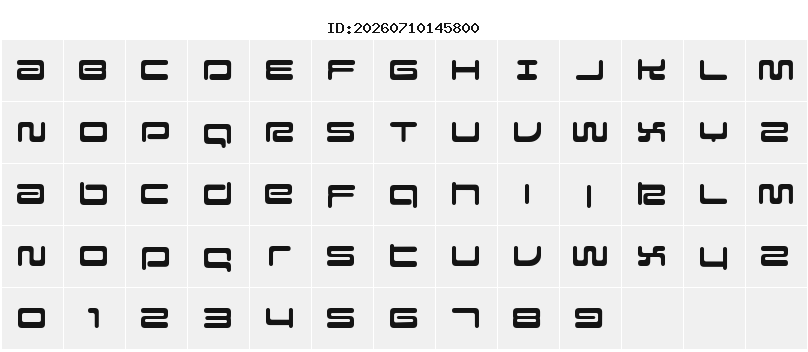
• Font Name: Falcon
• Full Font Name: Falcon
About Falcon.ttf
Falcon.ttf is a modern, elegant sans-serif font designed for ultimate readability and visual harmony. Perfect for branding, headlines, web design, and print materials.